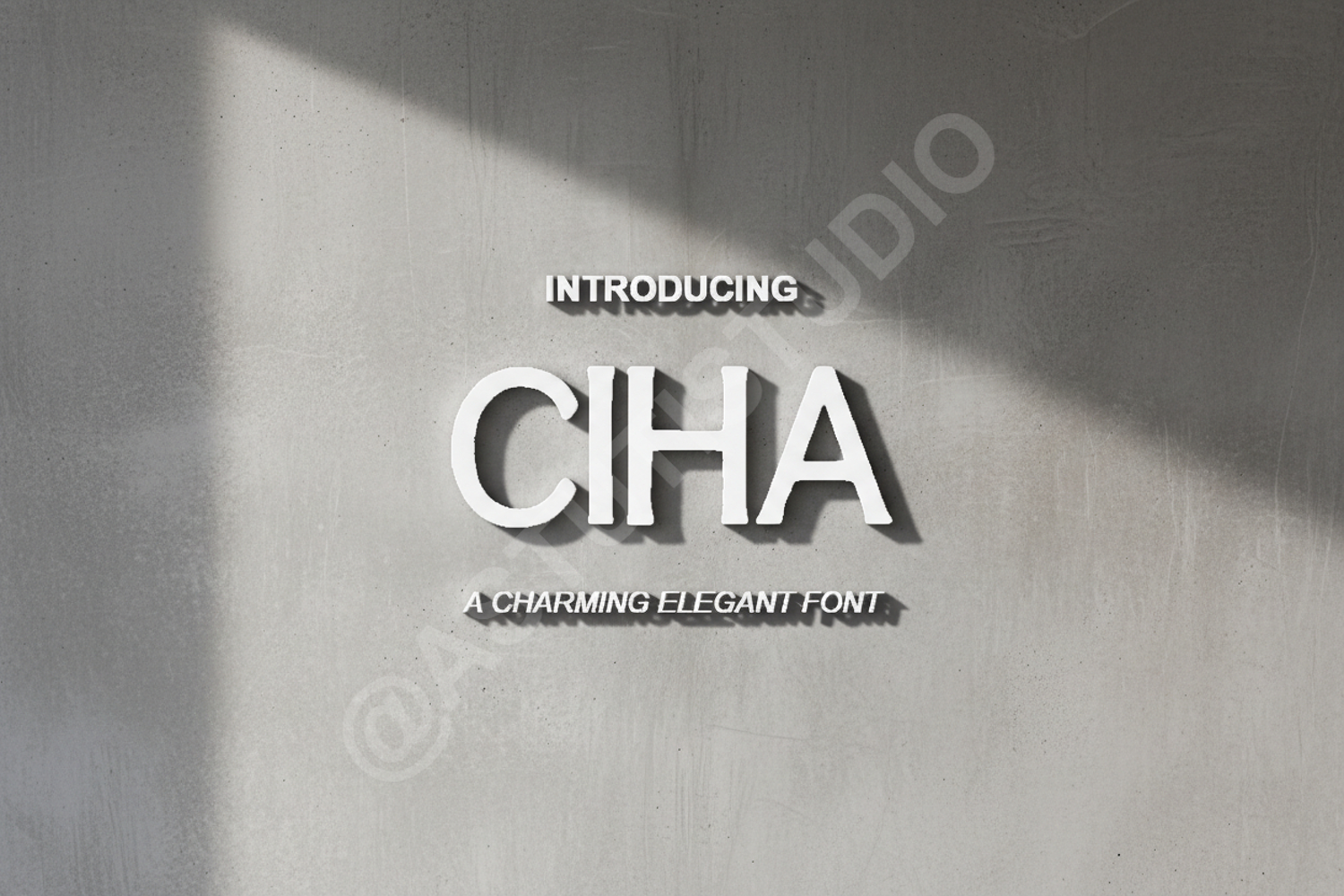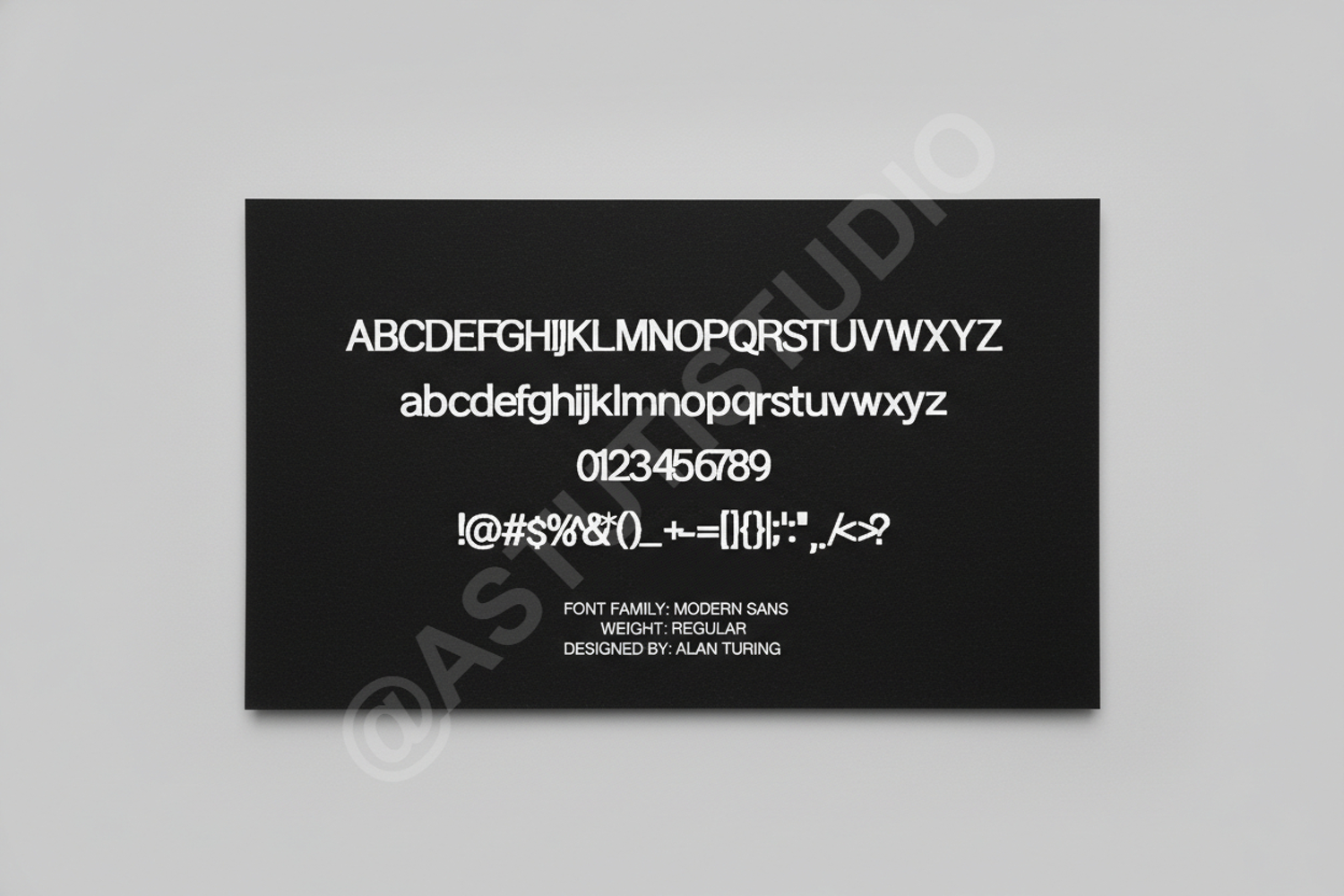
Ciha - Modern Minimalist Sans Serif
Ciha
Ciha is a premium minimalist sans serif font that embodies sophistication and versatility. Crafted with clean lines and balanced proportions, Ciha is designed to elevate your creative projects with a touch of modern elegance. Whether you are working on high-end branding or clean editorial layouts, this font provides the professional edge you need to stand out.